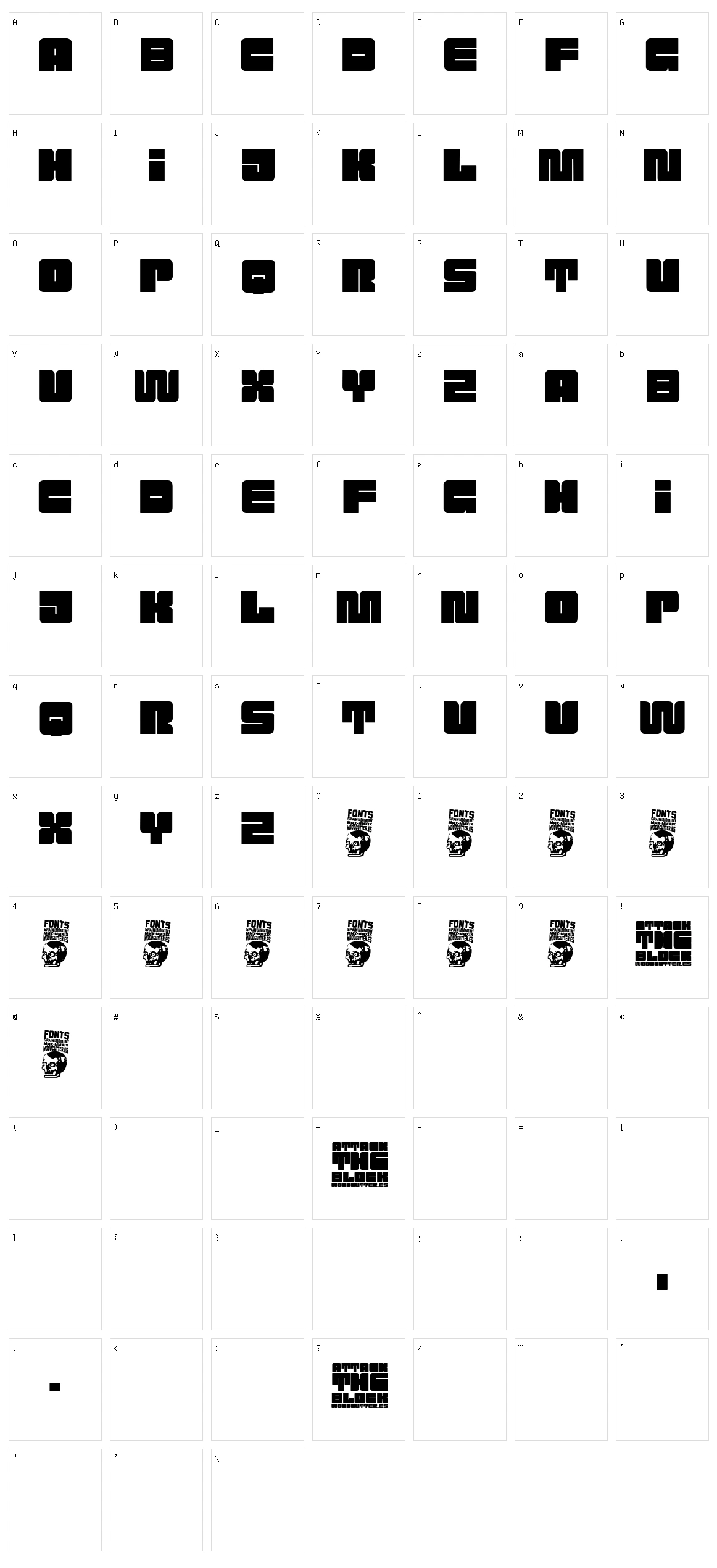
The free font Attack the Block is carefully designed by Woodcutter, showcasing a thoughtful balance of creativity and usability and falls under the Groovy font style. When you download the ZIP file, it contains only 125.11 KB of font files, making it lightweight and quick to download. Please review the license details below to understand permitted usage and distribution rights. If license information is not available, we recommend using this font for personal projects only or contacting the author directly for commercial usage permissions.